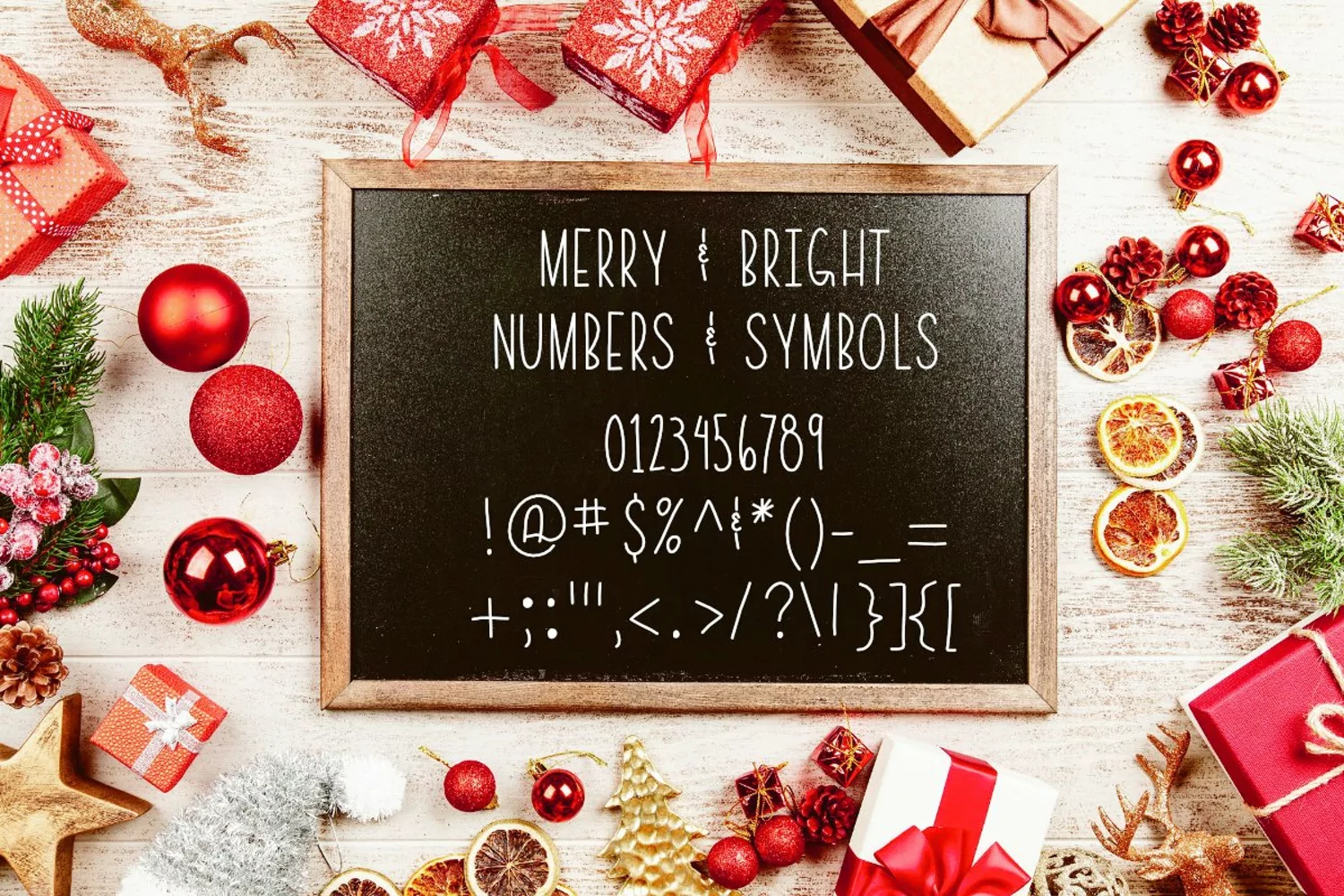
Merry & Bright All Caps Font
A super cute craft font, perfect for the holidays, & crafts.
The lower case letters are bold & upper case are a thinner version.